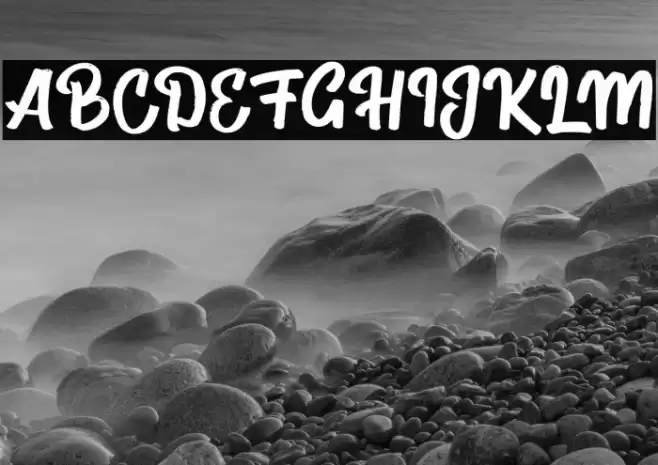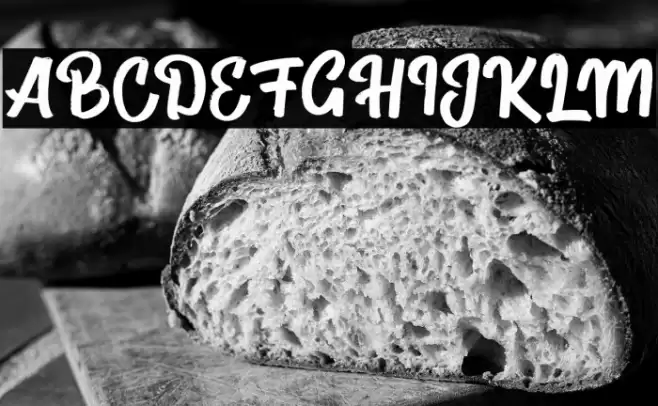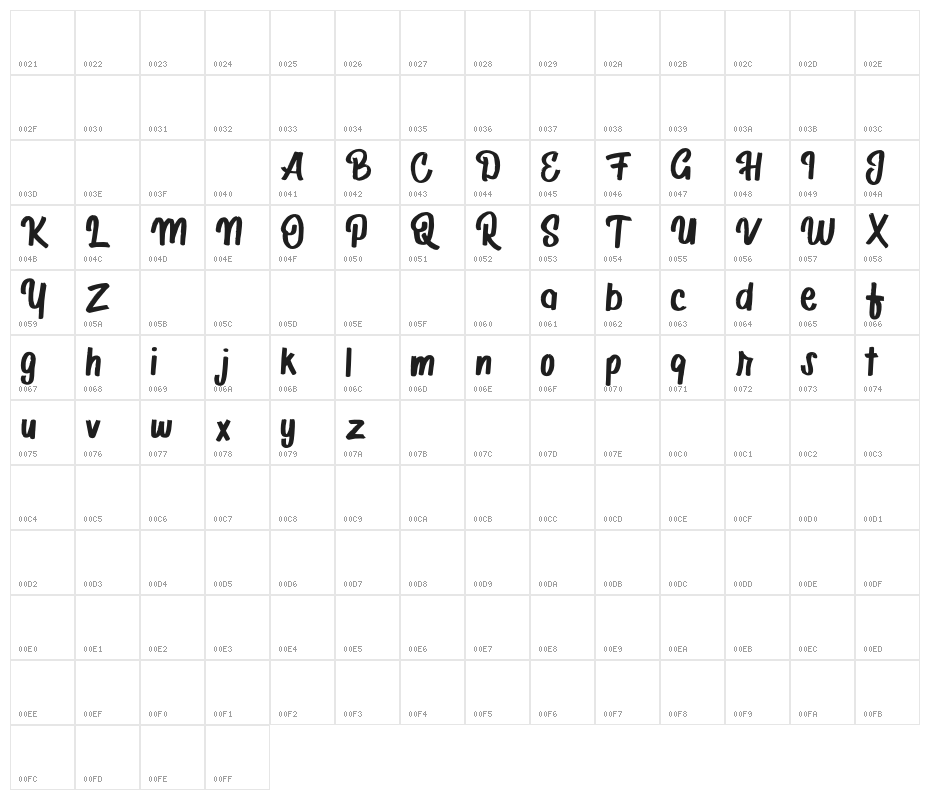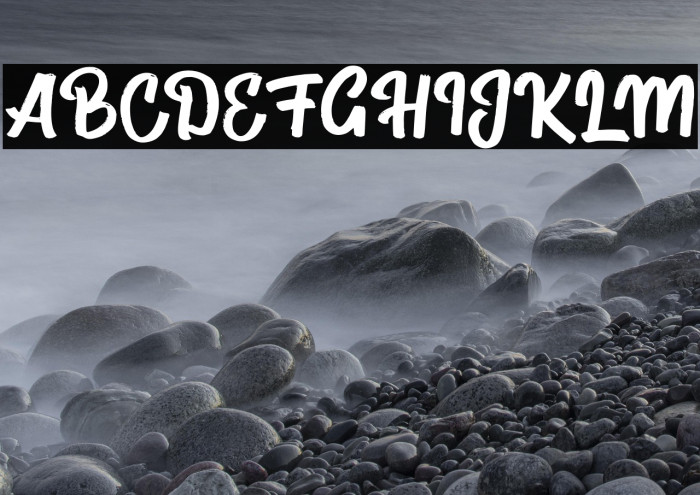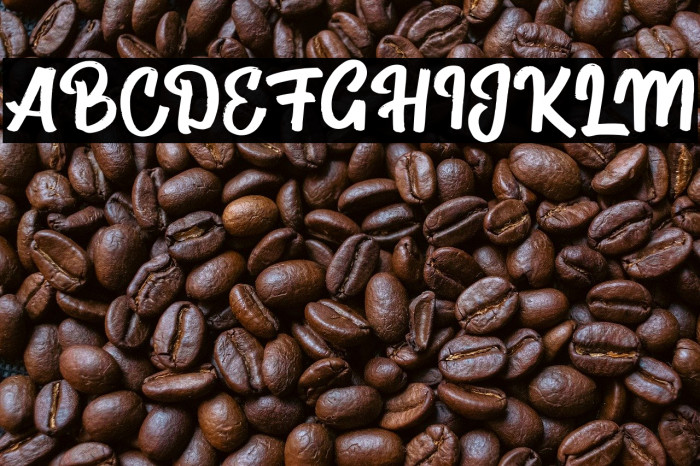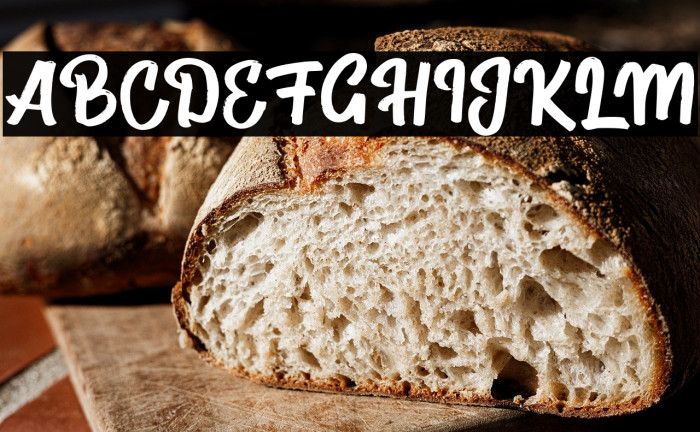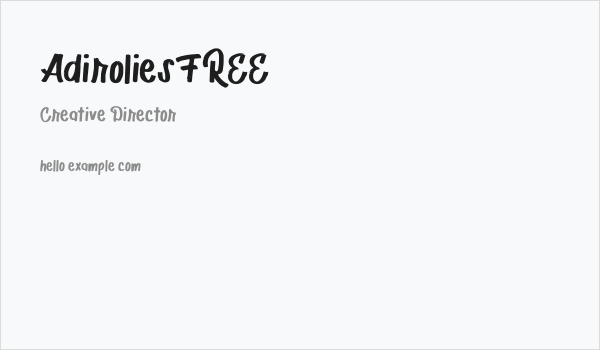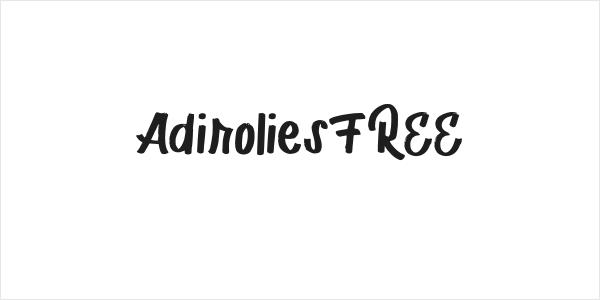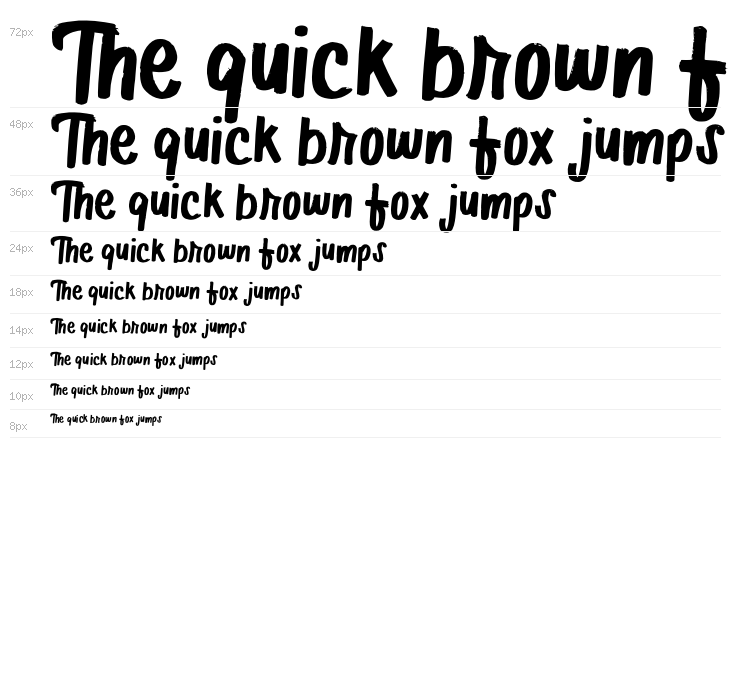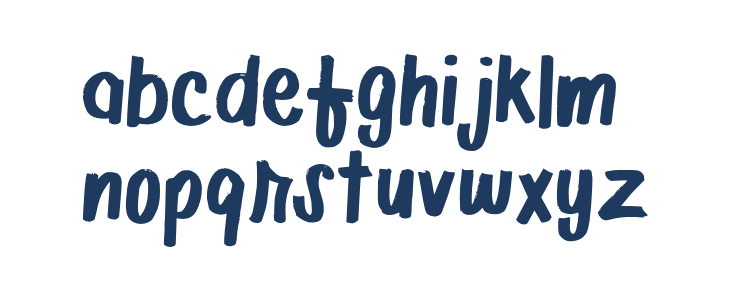
AdiroliesFREE Font
AdiroliesFREE Description
This font features a bold and expressive style with a handwritten appearance. The letters are characterized by their thick strokes and playful curves, giving it a lively and dynamic feel. The uppercase letters are slightly more structured, while the lowercase letters maintain a casual and fluid form. The overall design is consistent, with a slight slant that adds to its informal charm. This font is versatile, making it suitable for a variety of creative projects where a personal touch is desired.
A bold, handwritten-style font with playful curves and thick strokes from Uncategorized fonts.
- Font: AdiroliesFREE
- Proposed Projects: Ideal for greeting cards, posters, branding, and social media graphics.